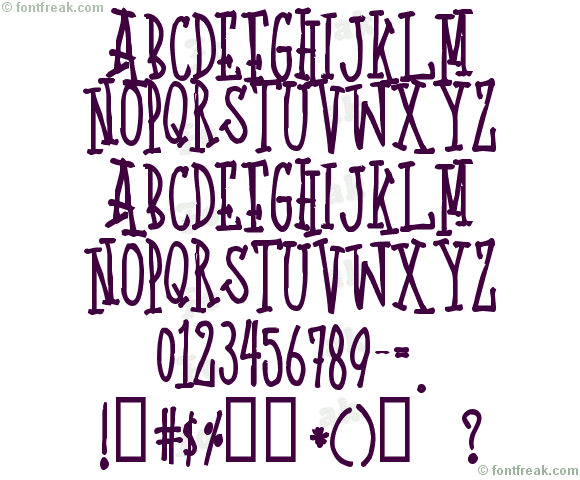
Quoted Positivity
About Quoted Positively
Quoted Positively by Pizzadude is a delightful display font that exudes a sense of warmth and optimism. This freeware typeface features a playful, handwritten style that captures the essence of positivity, making it an ideal choice for a wide range of creative projects. The font showcases a medium stroke weight with a subtle contrast that gives it a friendly appearance. Its slightly rounded edges and whimsical curves enhance its approachable nature, while the generous spacing between characters ensures readability.
This font shines in various applications, particularly in wedding invitations where a touch of charm is desired. Its uplifting aesthetic also makes it perfect for greeting cards, motivational posters, and social media graphics aimed at promoting positivity. Additionally, small business owners can utilize Quoted Positively for branding materials, such as logos and packaging designs, to create a welcoming atmosphere that resonates with their audience.
Targeted toward graphic designers, content creators, and small business owners, Quoted Positively appeals to those who wish to convey a friendly and inviting tone in their work. Its unique characteristics allow it to stand out in a crowded market, making it a versatile addition to any designer's toolkit.
What truly sets the Quoted Positively font apart is its ability to evoke a sense of joy and encouragement. The playful nature of the letters, combined with its distinctive style, ensures that any project featuring this font will capture attention and leave a lasting impression. For those seeking to spread positivity through their designs, the Quoted Positively font free download is an excellent choice that empowers creativity and fosters an uplifting atmosphere.